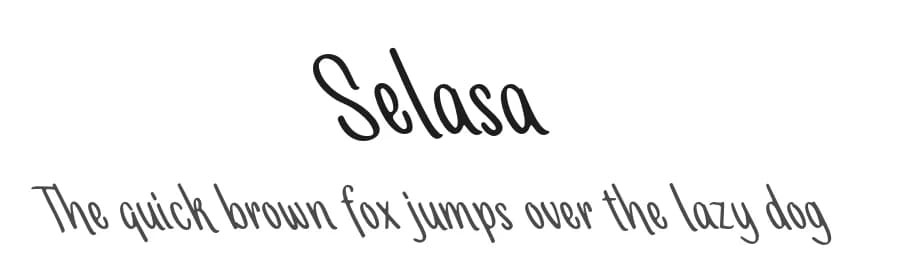
About Selasa Font
Selasa font is an unusual handwritten font where the angle is tilted to the left. At first it might look weird but you need to see something out of the ordinary occasionally.
This font comes with several final form characters so that you can make typography more varied. Just activate the swash feature to add a swirl at the end of the word.
Selasa Font is a script font that shines as a display or heading face. Pair it with a clean sans-serif or serif font for body text β the contrast creates a clear hierarchy while the two styles stay balanced and easy to read.
Selasa Font